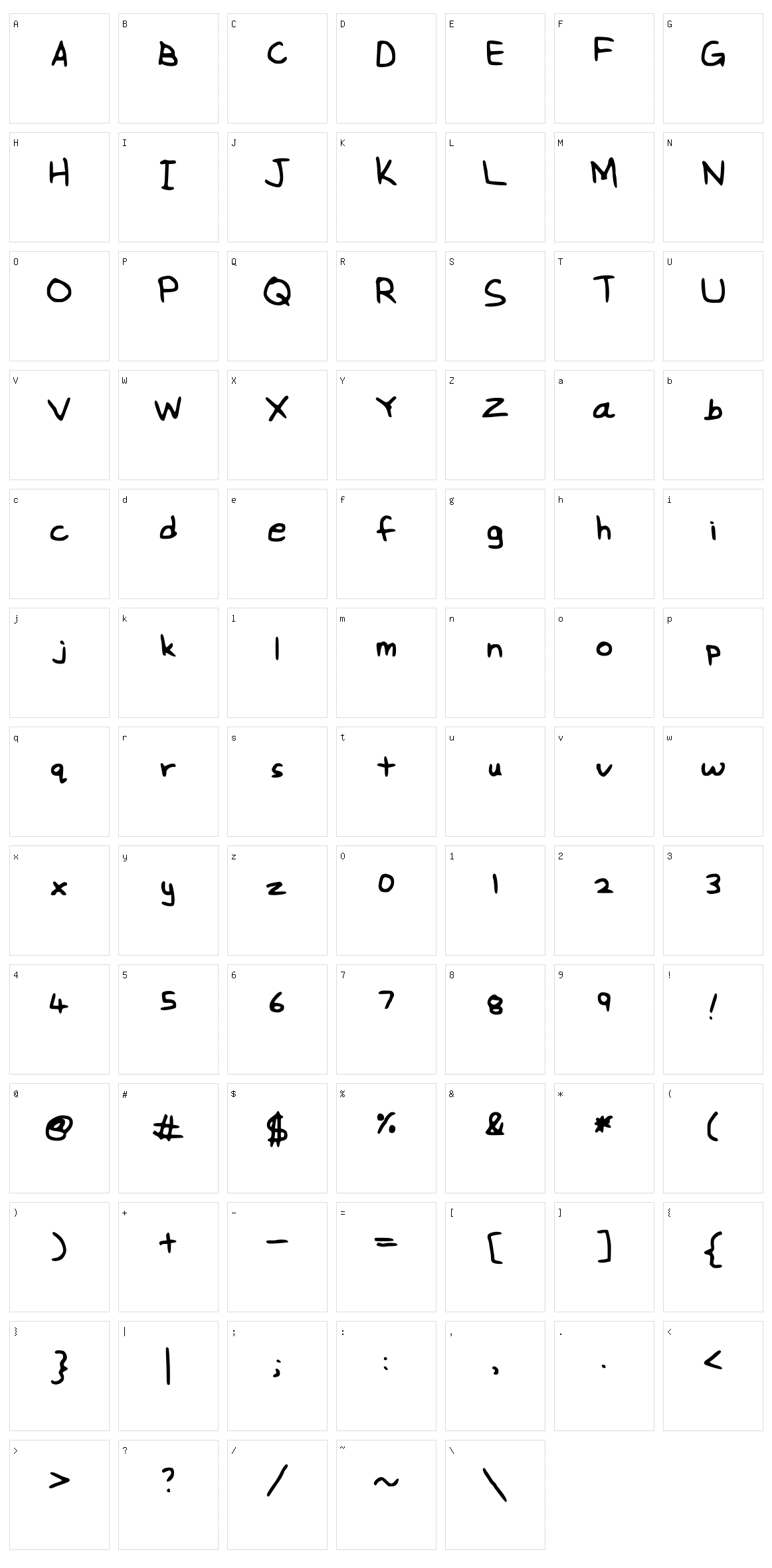
The free font Wei is carefully designed by ppfflop, showcasing a thoughtful balance of creativity and usability and falls under the Script font style. When you download the ZIP file, it contains only 11.95 KB of font files, making it lightweight and quick to download. Please review the license details below to understand permitted usage and distribution rights. If license information is not available, we recommend using this font for personal projects only or contacting the author directly for commercial usage permissions.